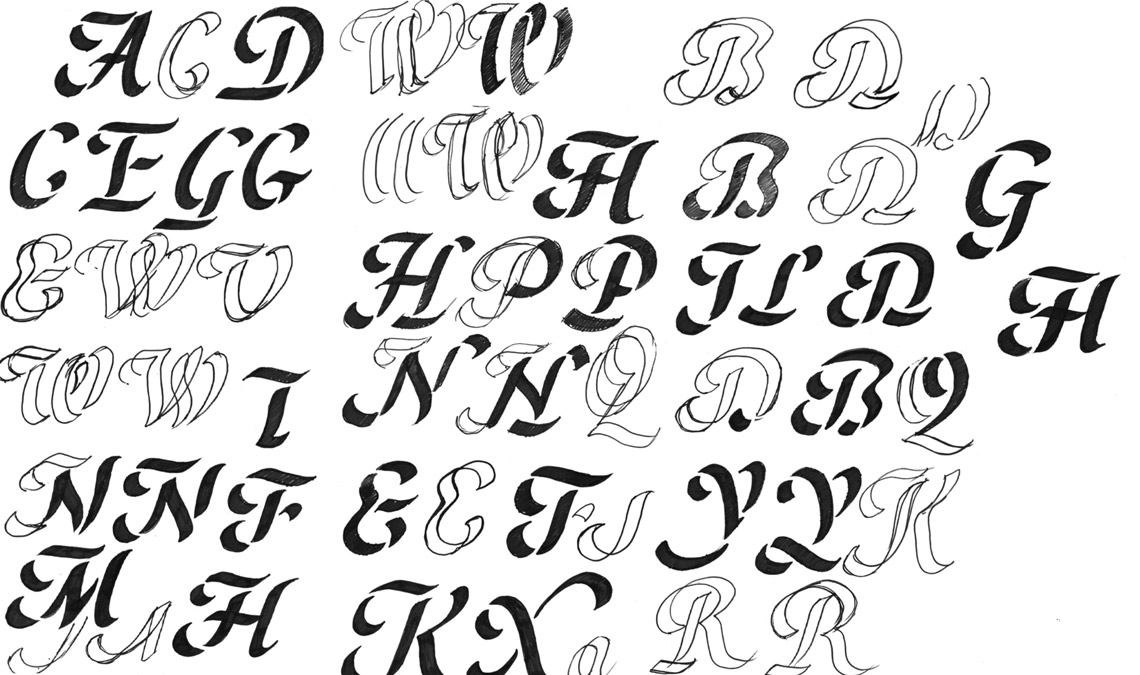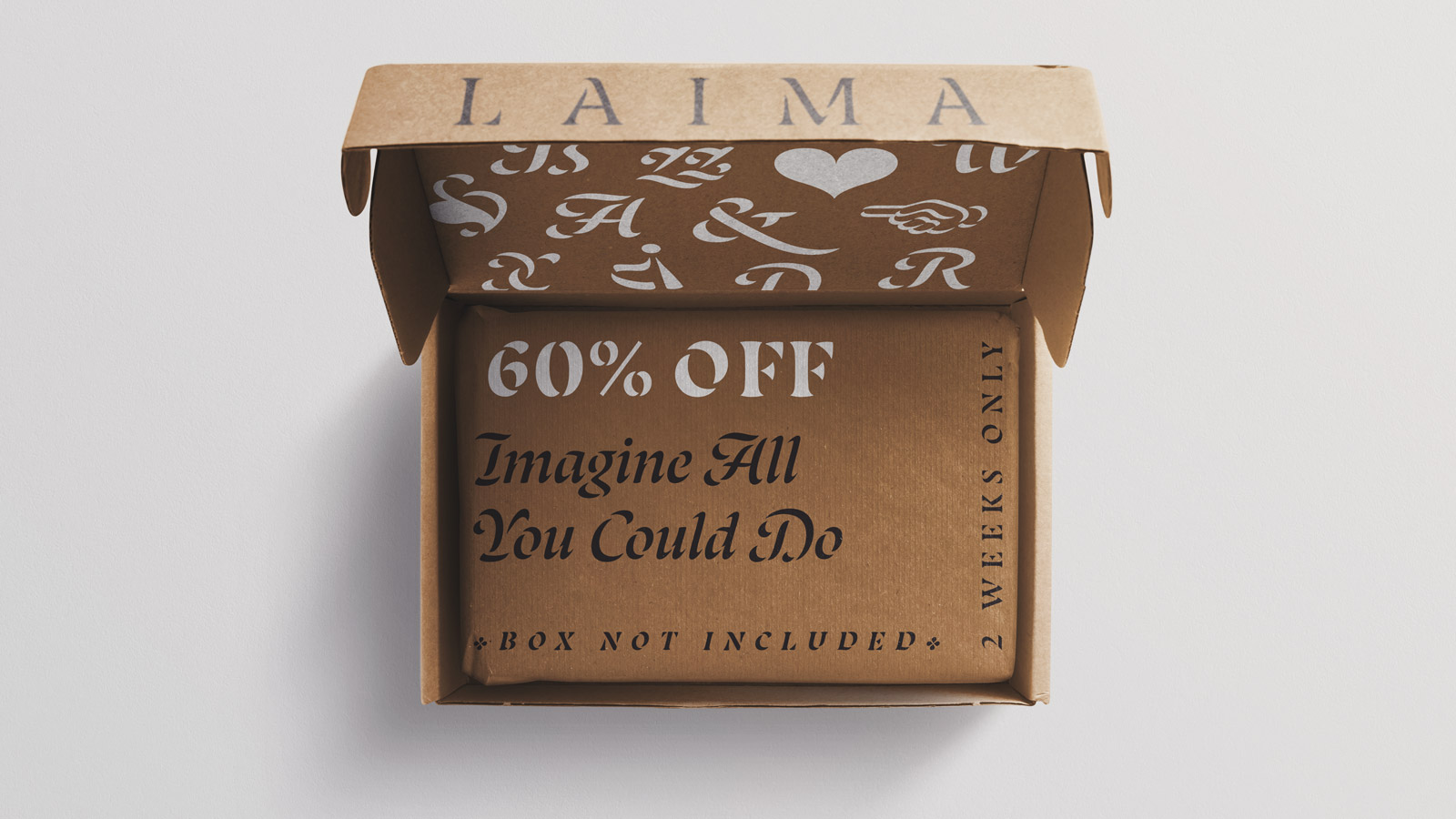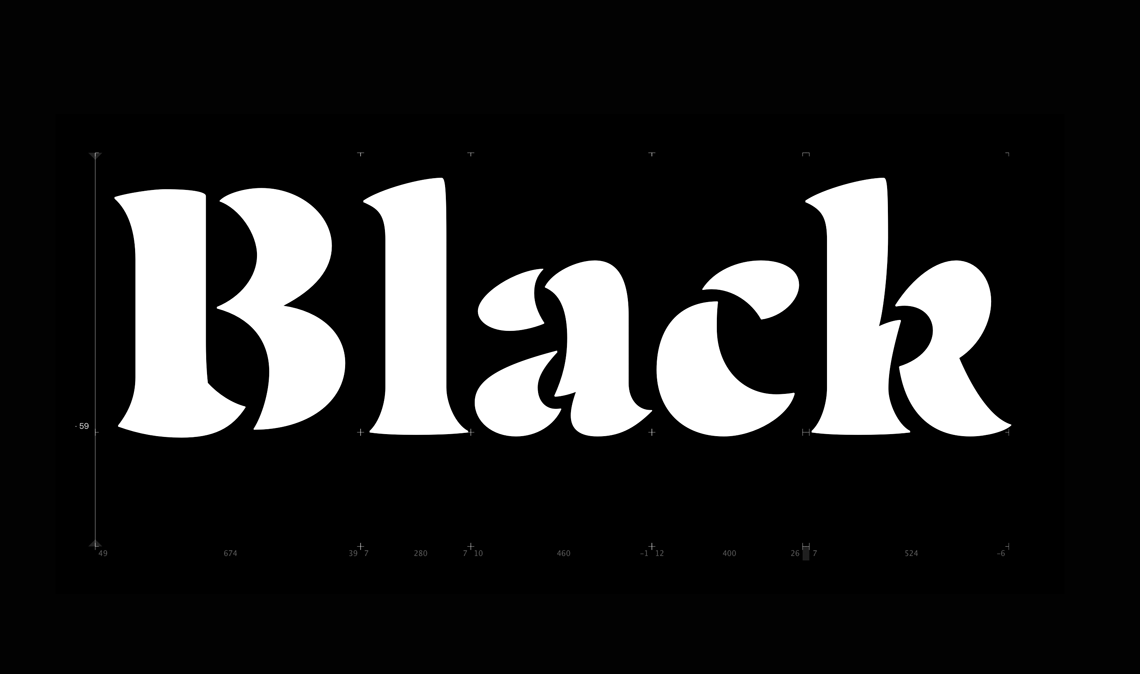
Laima black
Sketches by Bogidar Mascareñas reproduced from the Process Book, submitted as part of his project at Type and Media.
Bogidar Mascareñas’s Laima is no ordinary stencil. Many stencils are based in industrial shapes and the repetition of a stencil tool. Laima, by contrast, was inspired by organic, fluid calligraphy, and specifically a Spanish book of engravings published by Francisco Palomares in 1776: Arte nueva de escribir. The Laima family — heavy on loops, curves, and the artistic flick of the wrist — is enhanced with different flourishes and alternates that add liveliness and variety.
A detail from the book “Arte nueva de escribir”, by the Spanish calligrapher Francisco Palomares, 1776. Image from BNE.
Laima has had an award-winning year — literally. We were delighted that Bogidar’s design received the TDC award of typographic excellence, was selected as a Display Fonts finalist in the Latin-American Clap awards, was selected in the Spanish Laus awards for design and advertising, and received a nomination at the European Design & Advertising Awards (ADCE). It was also included as part of Typographica’s “Favorite Typefaces of 2019”. Needless to say, Laima made waves instead of just a ripple.
Good things take time to mature. Bogidar decided he wanted to add a bit more heft and presence to the family so he is busy finishing up Laima Black and Laima Black Italic. Always a fan of sketches and behind the scenes peeks, we asked for a time-lapse preview of how it’s coming along, which you can peep below.